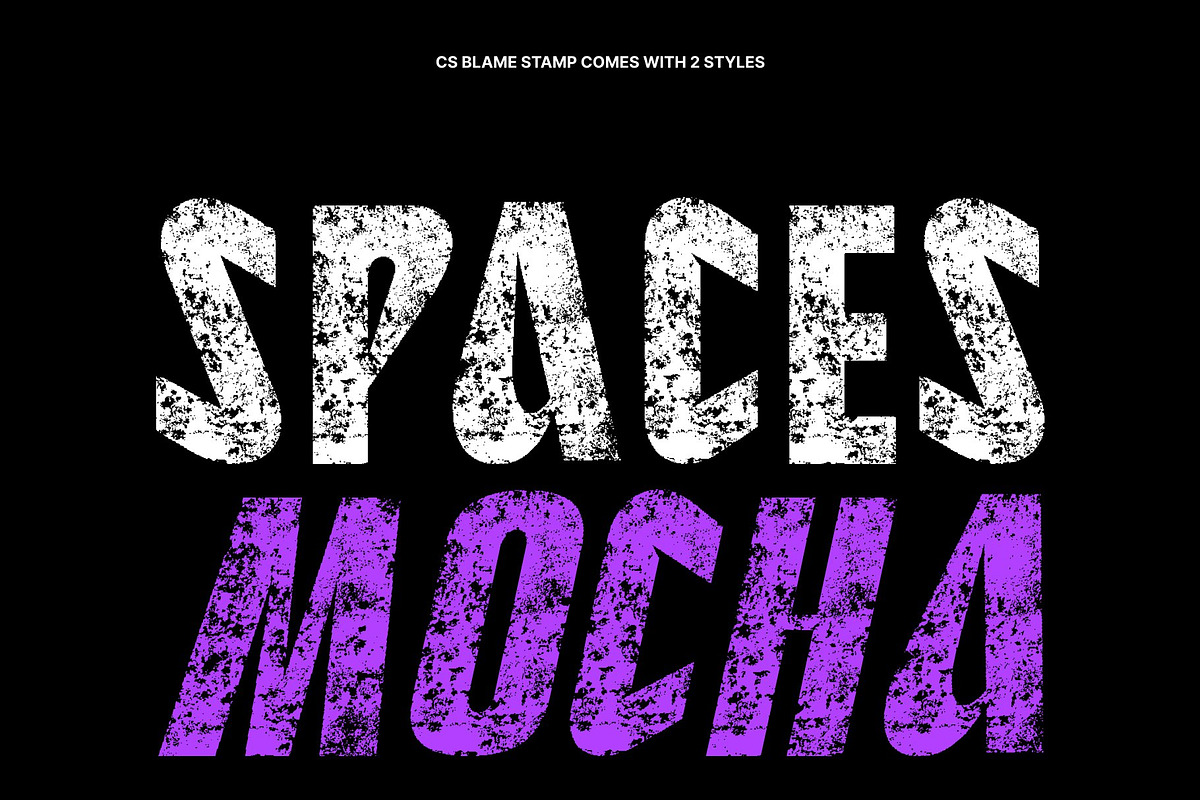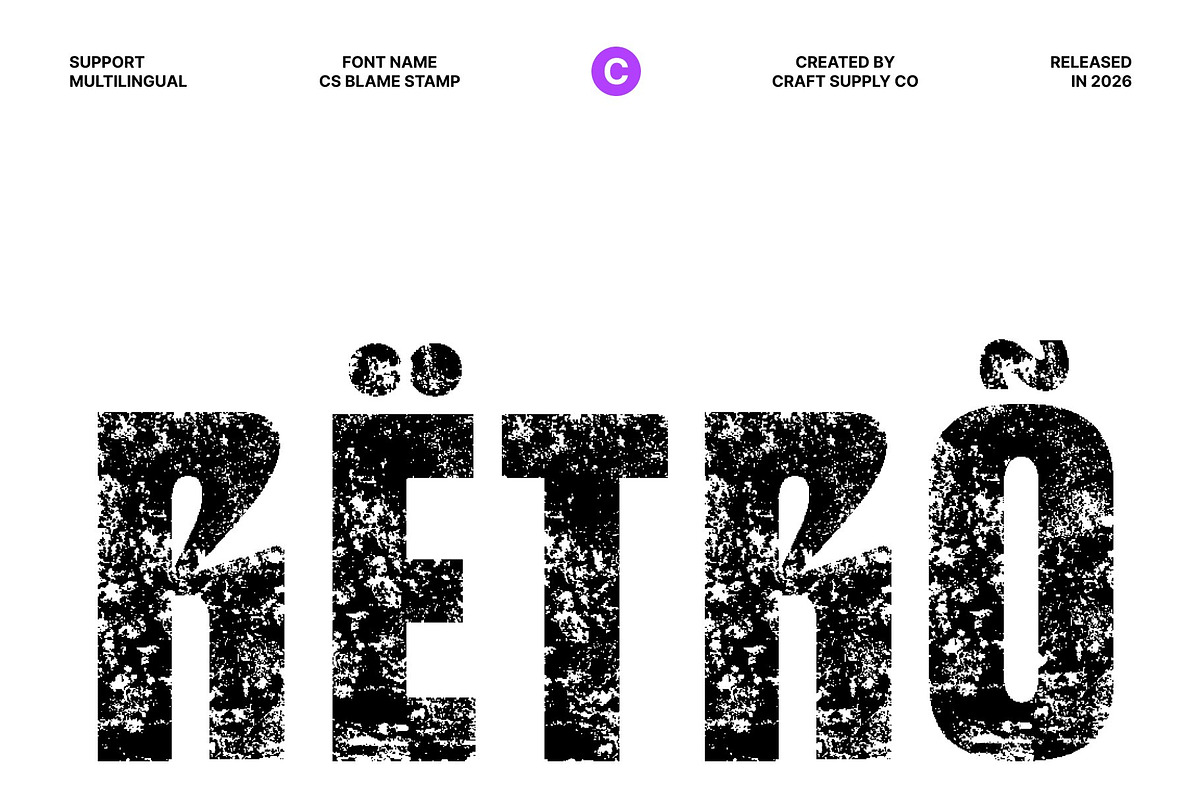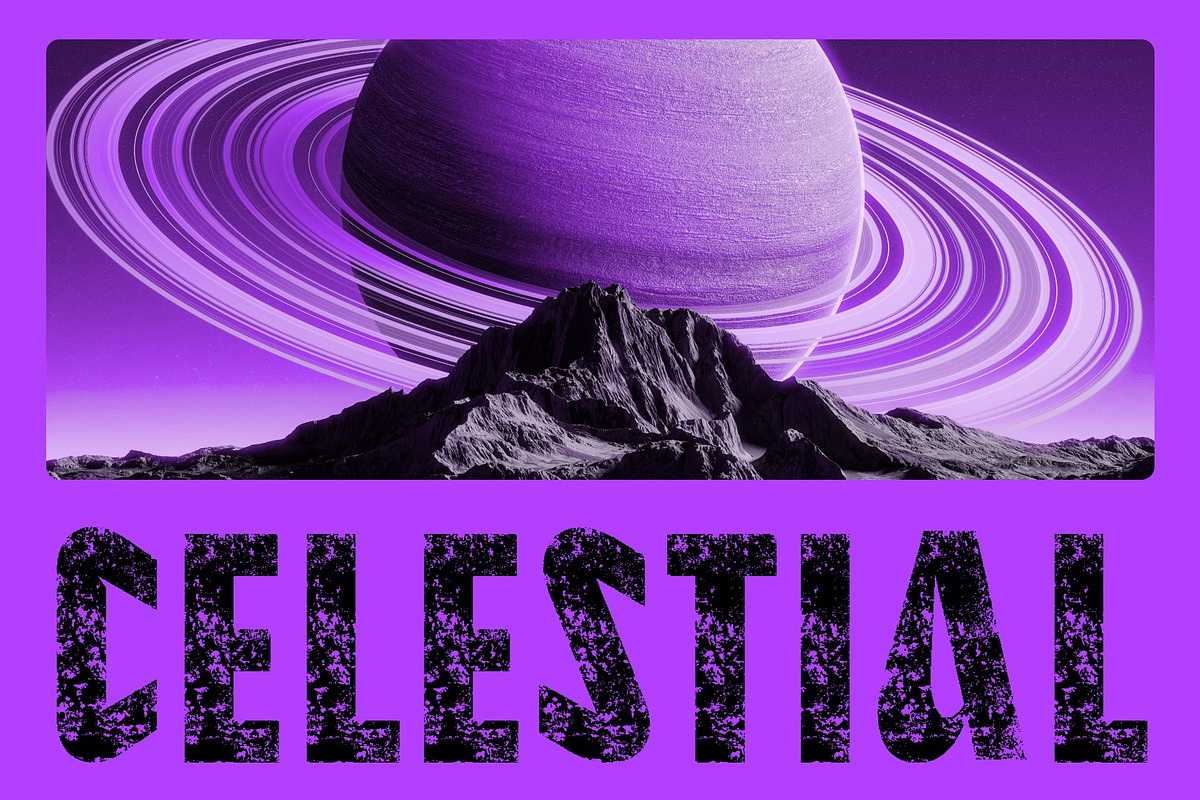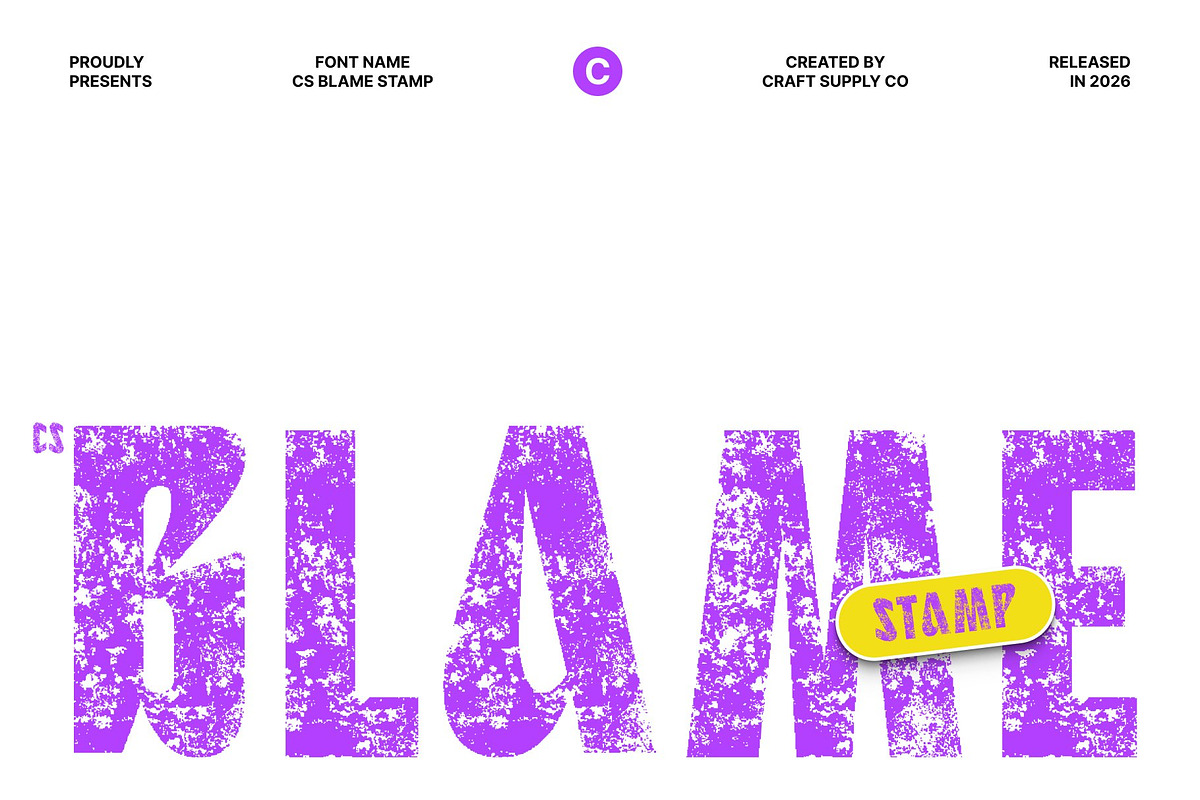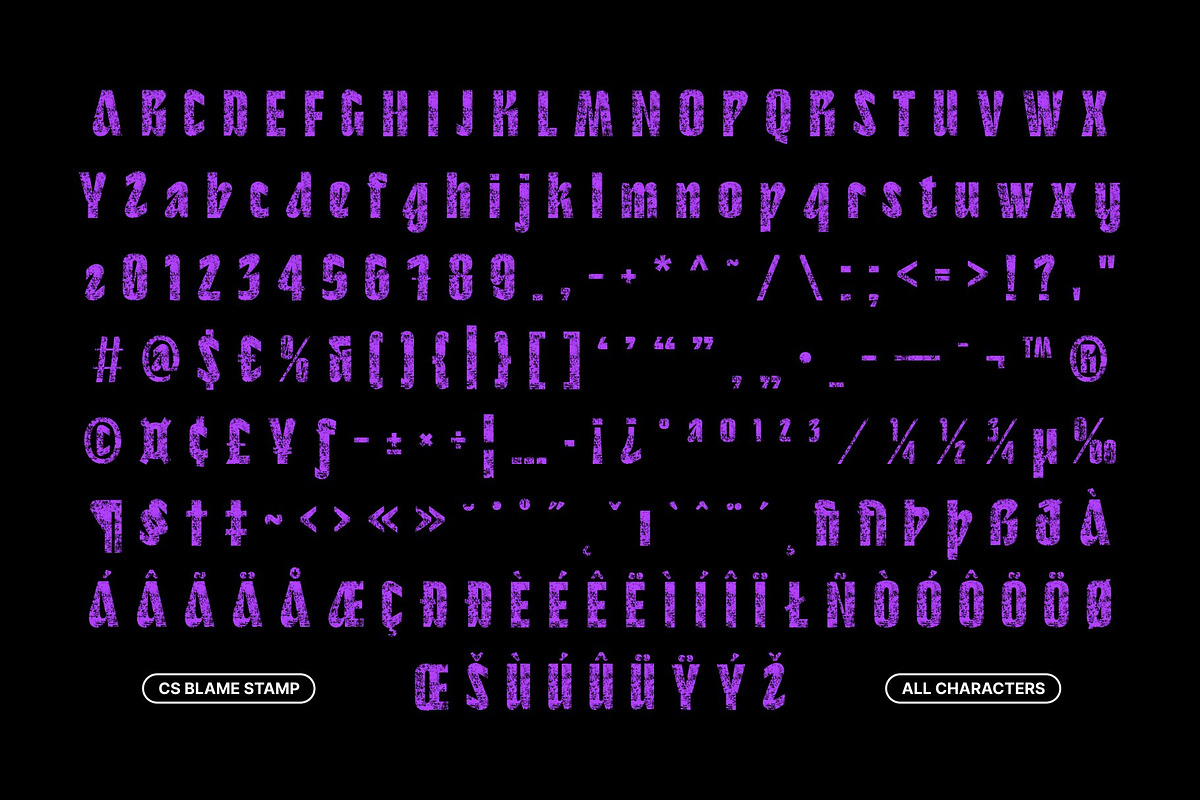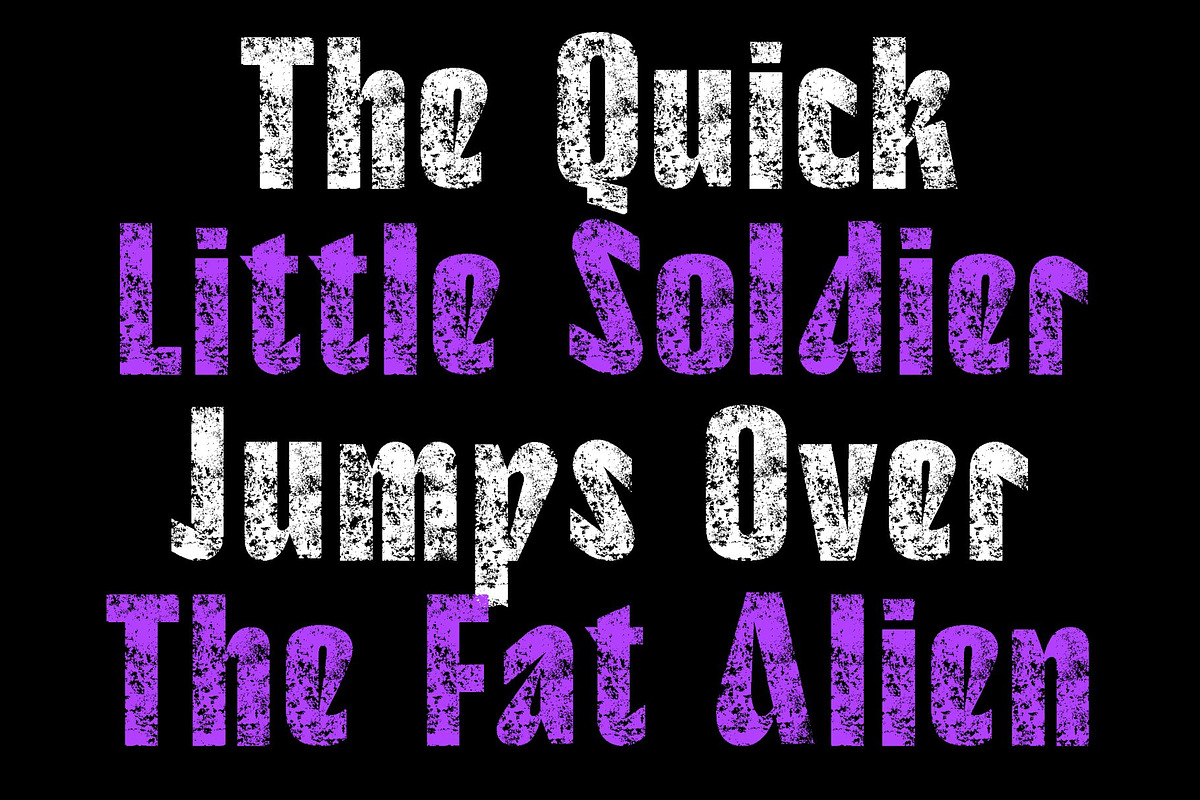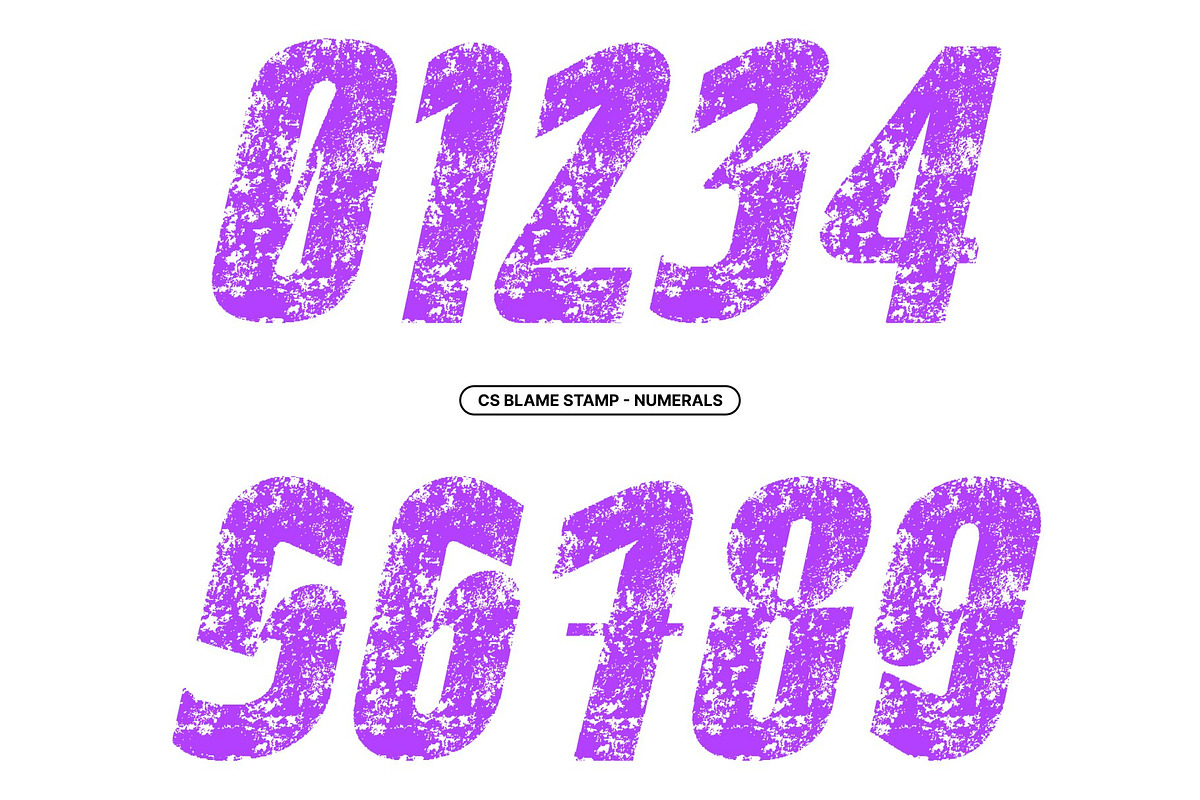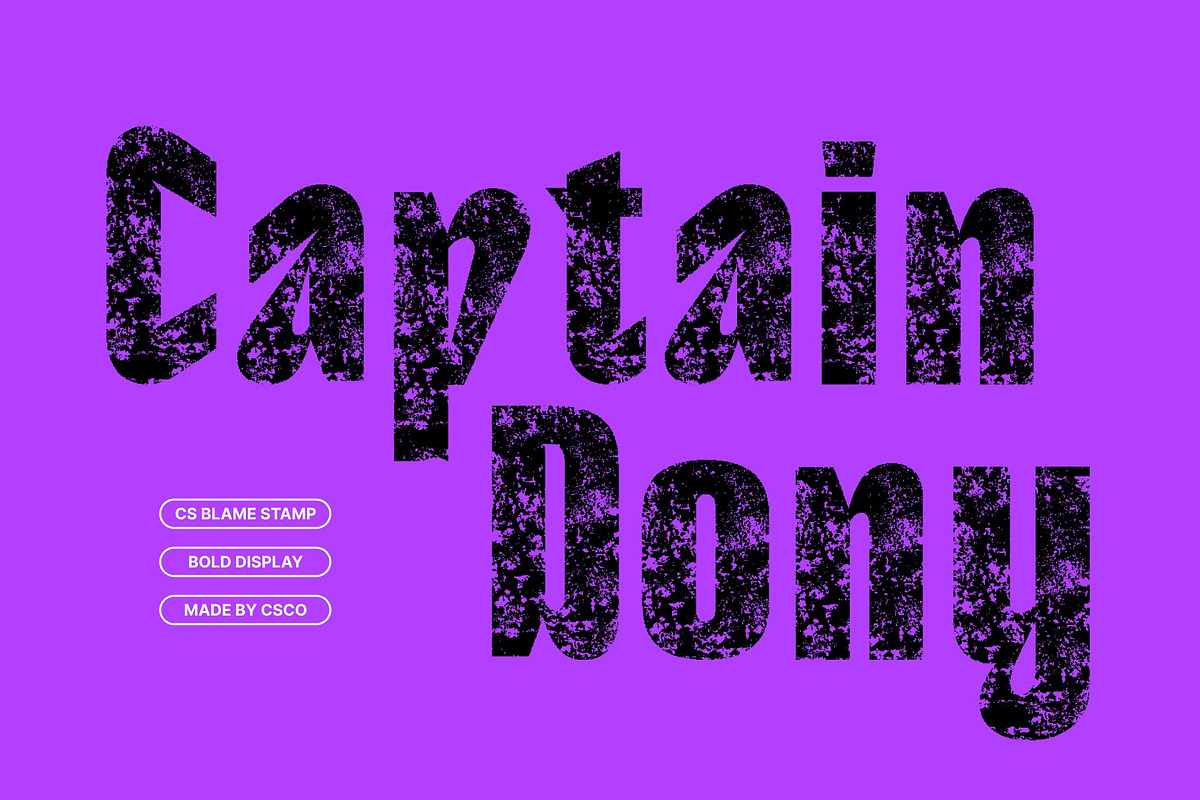
CS Blame Stamp
CS Blame Stamp – Bold Funk with Raw Textured Energy
Bold Sans-Serif with Stamped Personality This is a modern sans-serif font that combines confident boldness with playful funky character, enhanced by a distinctive stamp texture. Its strong, solid letterforms command attention, while the stamped finish introduces a raw, print-inspired edge that adds depth and expressive personality.
Dynamic Forms with Textured Attitude Designed with balanced proportions and subtle curves, this font delivers excellent readability without sacrificing creativity. The funky stylistic elements are enriched by vintage stamp imperfections, giving each letter a lively, handcrafted feel that radiates energy and uniqueness.
Perfect for Impactful Branding and Visual Design Ideal for branding, posters, packaging, social media graphics, and promotional materials, this font ensures your message stands out. Its bold structure and textured character create a striking presence across both print and digital formats.
A Confident Statement with Retro Edge More than just a bold sans-serif, this font is a statement of confidence, vibrancy, and modern style. The fusion of funky forms and vintage stamp texture makes it perfect for trendy campaigns, creative visuals, and designs that demand attention with personality.